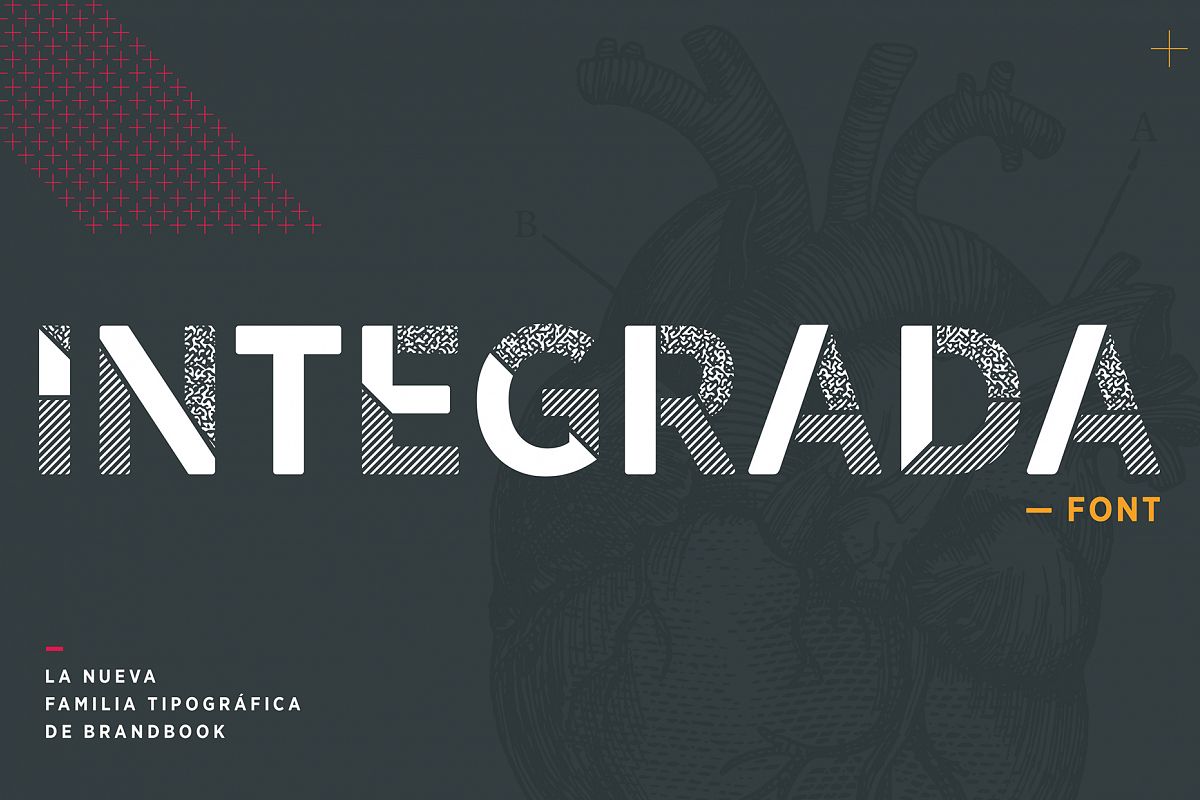
INTEGRADA font
INTEGRADA-REGULAR
INTEGRADA-FRACCIONADA
INTEGRADA-ENTRAMADA
INTEGRADA is a display typography designed for headlines and presentations. Based on the geometric forms of Gotham Narrow (from Hoefler & Co.), this font was designed for internal use in the chilean design agency Brandbook in collaboration with the Branding team.